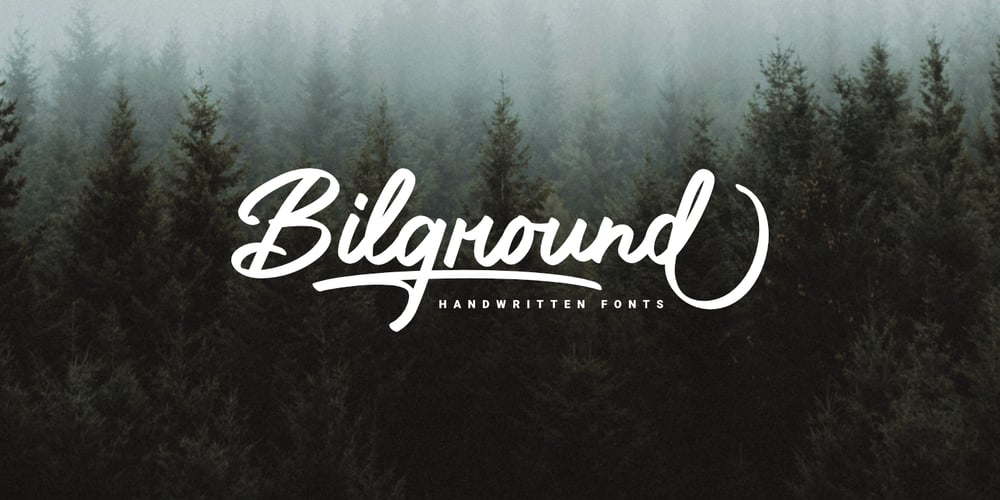
Bilground
Bilground font
Bilground Font Family was designed by Prio Nurokhim Aji and published by Prioritype. Bilground contains 1 styles and family package options. IntroducingBilground – Handwritten FontsBeautiful handwritten fonts with strong characters are now here to accompany your design projects. You can apply it to wedding designs, logos, quotes, social media posts, video content display etc. See some of the previews above for reference.Features:• Uppercase• Lowercase• Numeral• Punctuation• Multilingual• PUA Encoded• Opentype FeaturesThanks.